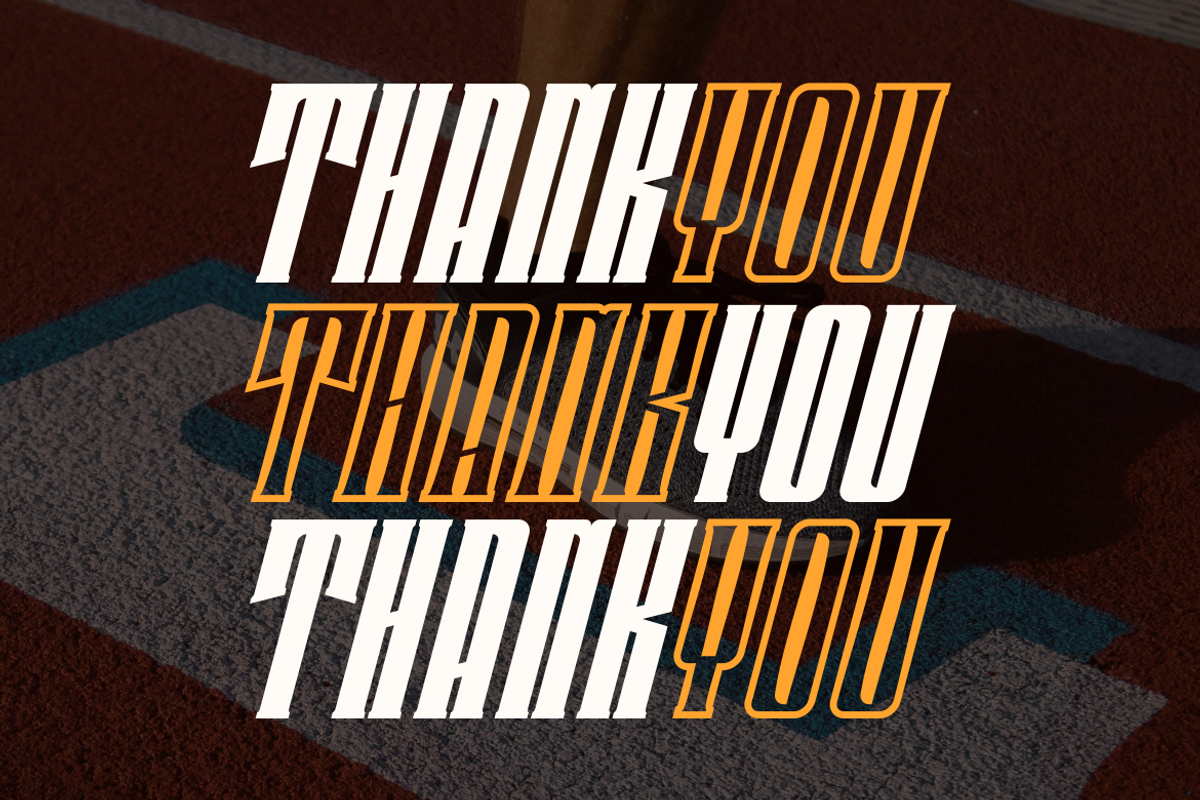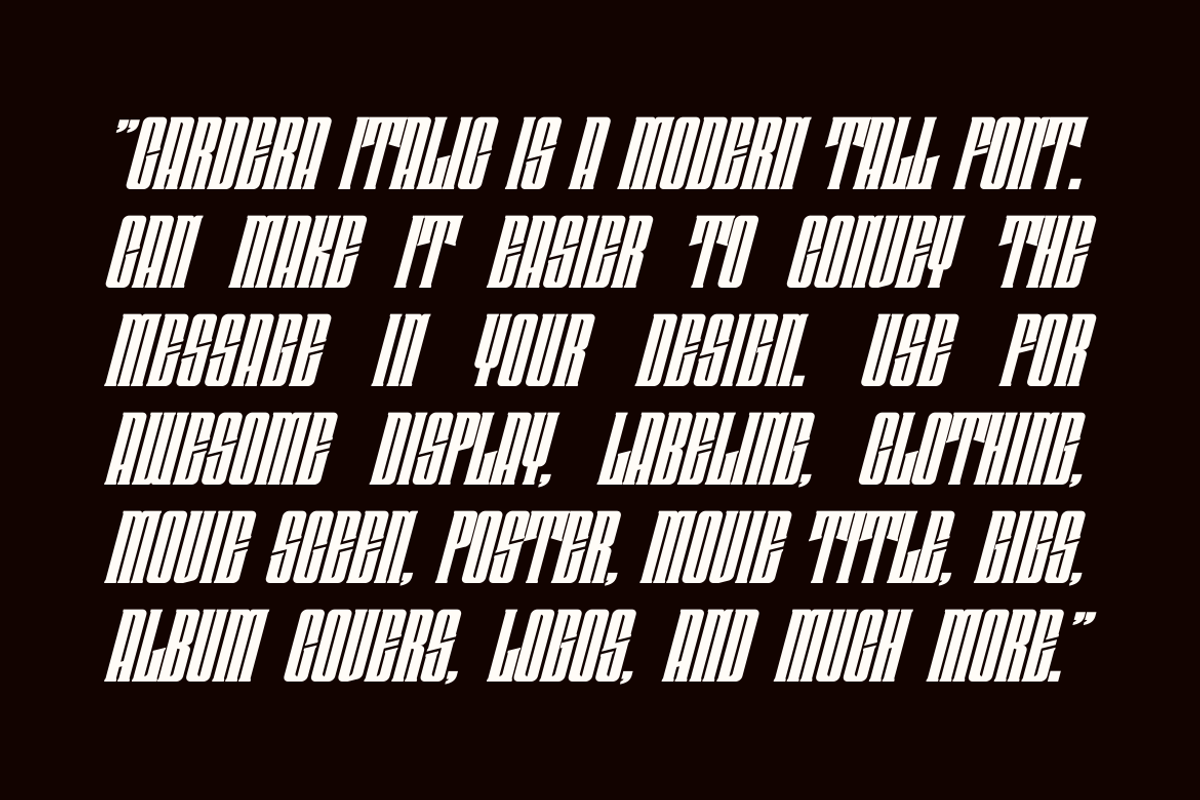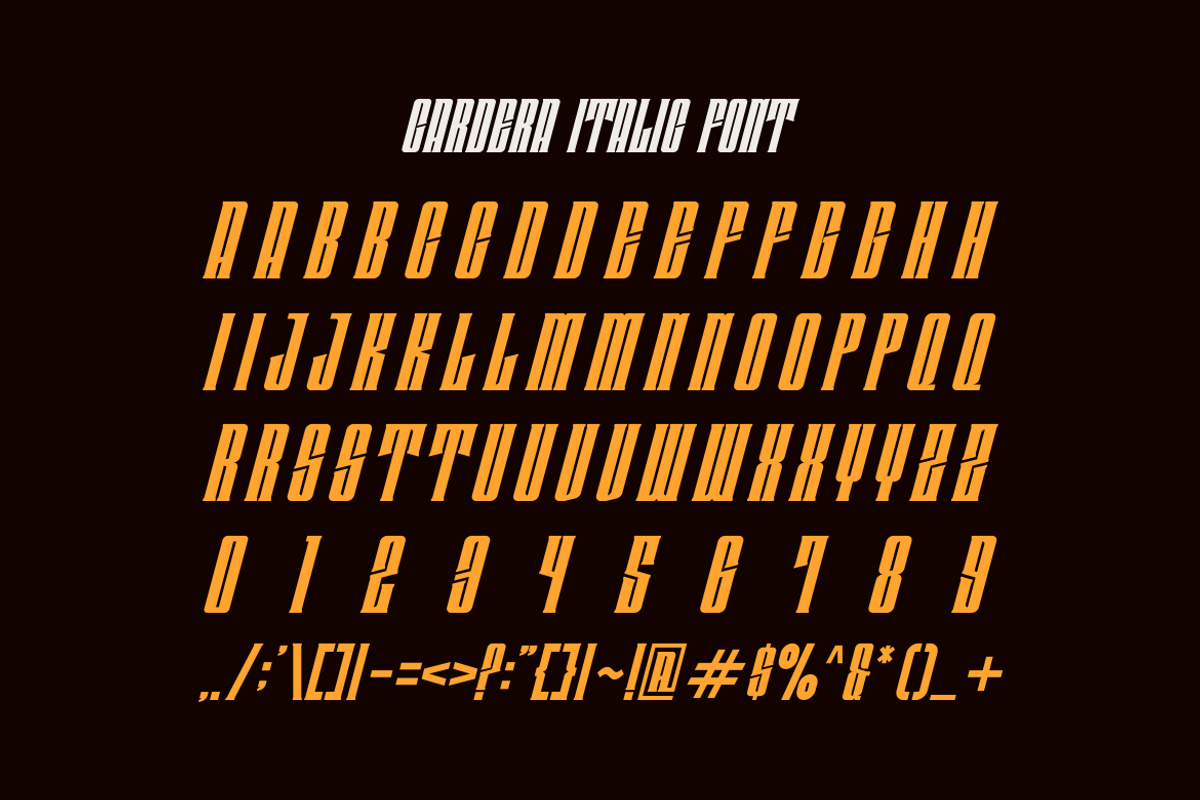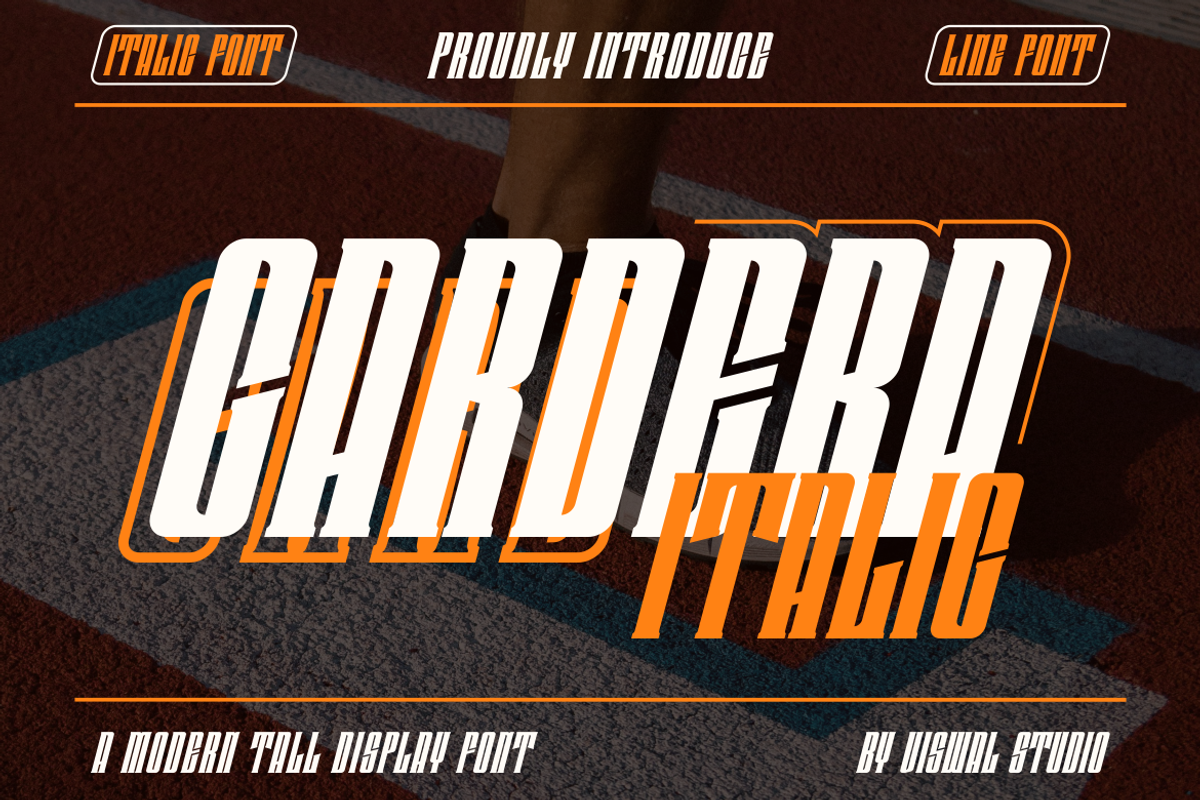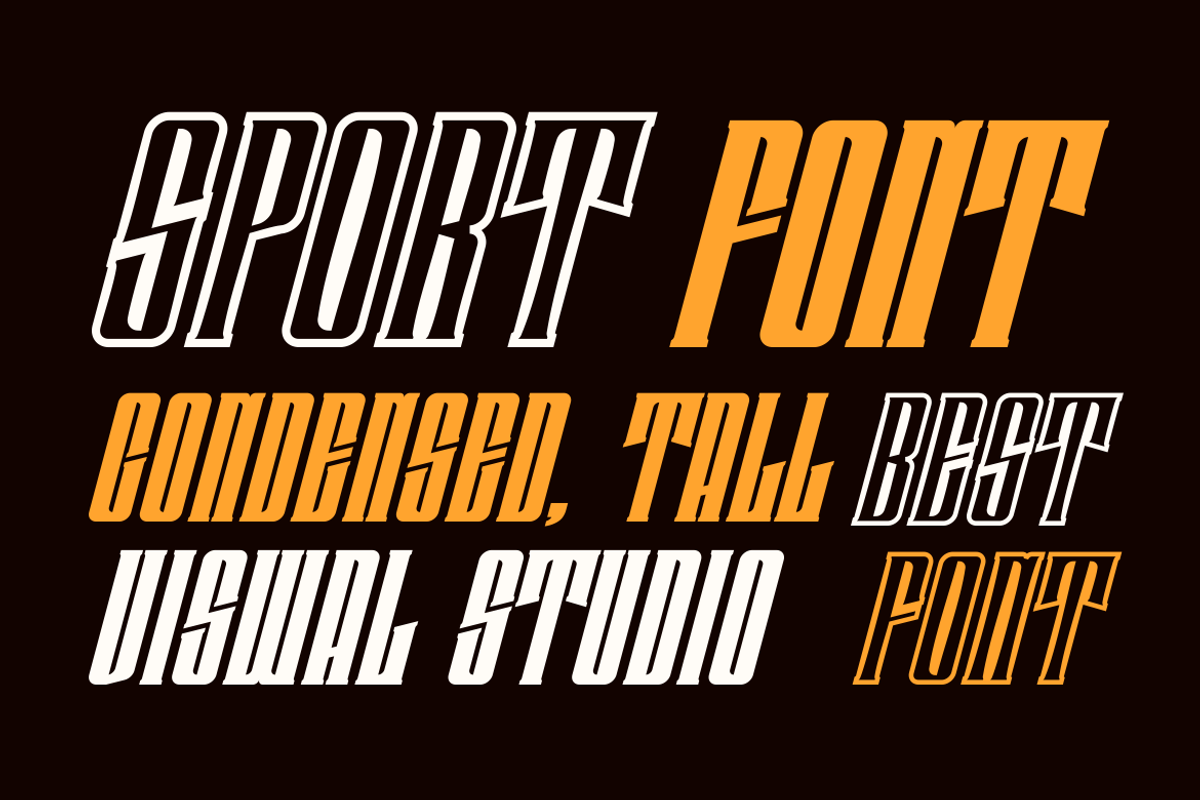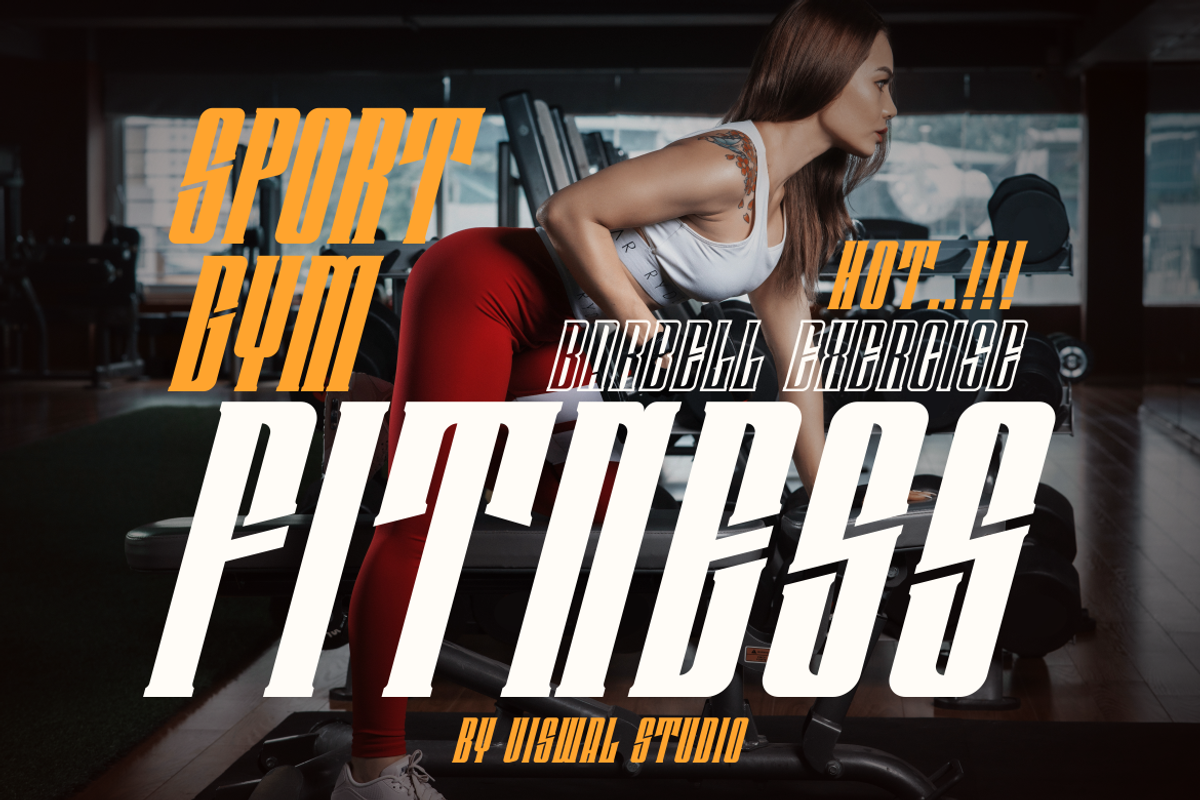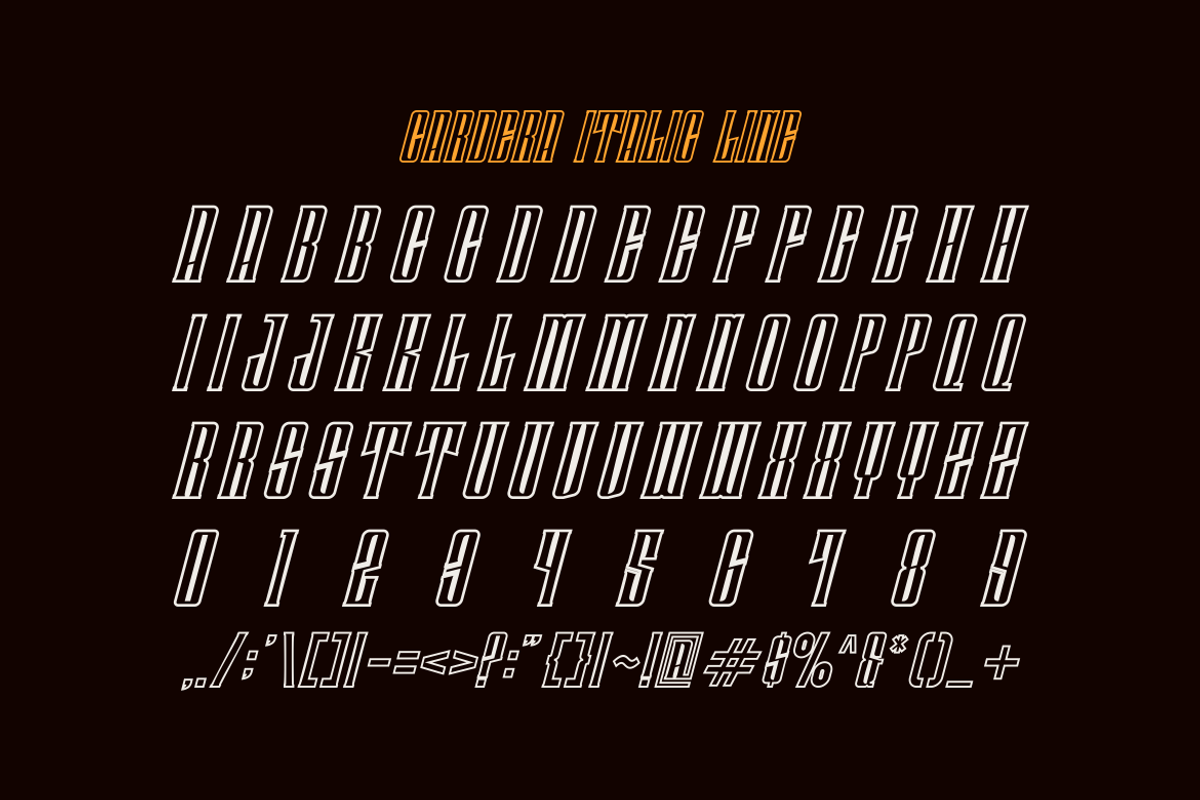
Cardera Italic - Modern Tall Font
Presenting Cardera Italic Is A Modern Tall Font
Can Make It Easier To Convey The Message In Your Design. Font Is Suitable For Logo, Labels, Badge, Branding, Magazine, Poster, Title, Gigs, Covers And Etc. Our Fonts Have Uppercase & Lowercase, Numeral & Punctuation, And Opentype Features. For Amazing Designs You Can Mix With Other Fonts As A Complement.